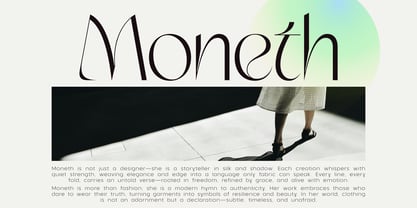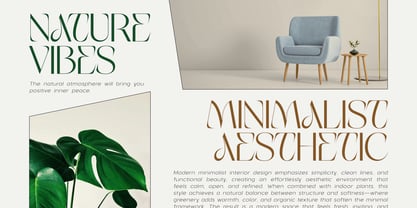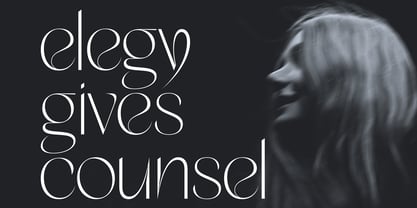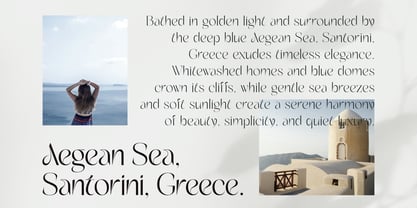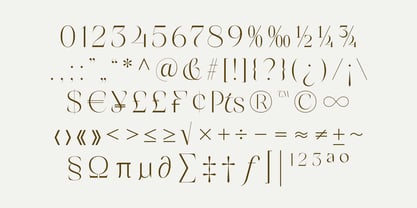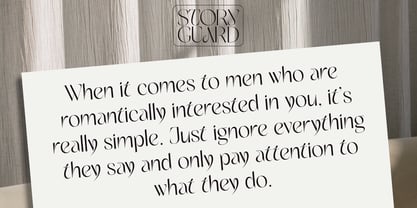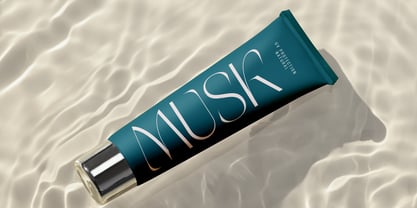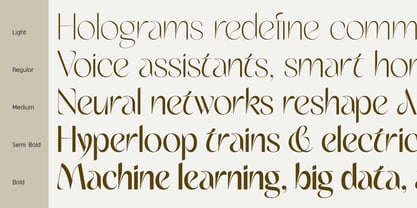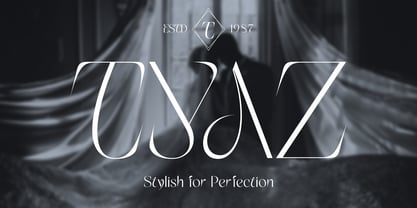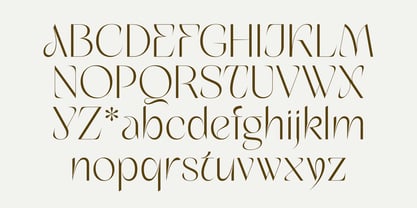
Story Guard Variable
The Story Guard Variable Font Family was designed by Sugi Yanto and published by Sign Studio. Story Guard Variable contains 1 styles. More about this family
Story Guard Variable — Precision in Motion Story Guard Variable expands the possibilities of contemporary sans design through seamless adaptability. Built with precise interpolation between weights, it offers designers total control — from delicate light forms to bold, assertive presence — all within a single, fluid file. Every curve retains the refined geometry and humanist warmth that define the Story Guard family, ensuring aesthetic harmony across all visual expressions. Its flexibility makes it ideal for responsive branding, editorial systems, and digital interfaces that demand both efficiency and elegance. Story Guard Variable isn’t just a typeface — it’s a living structure that evolves with your story, refined in every transition, timeless in every weight. Story Guard is a versatile choice for various design applications.